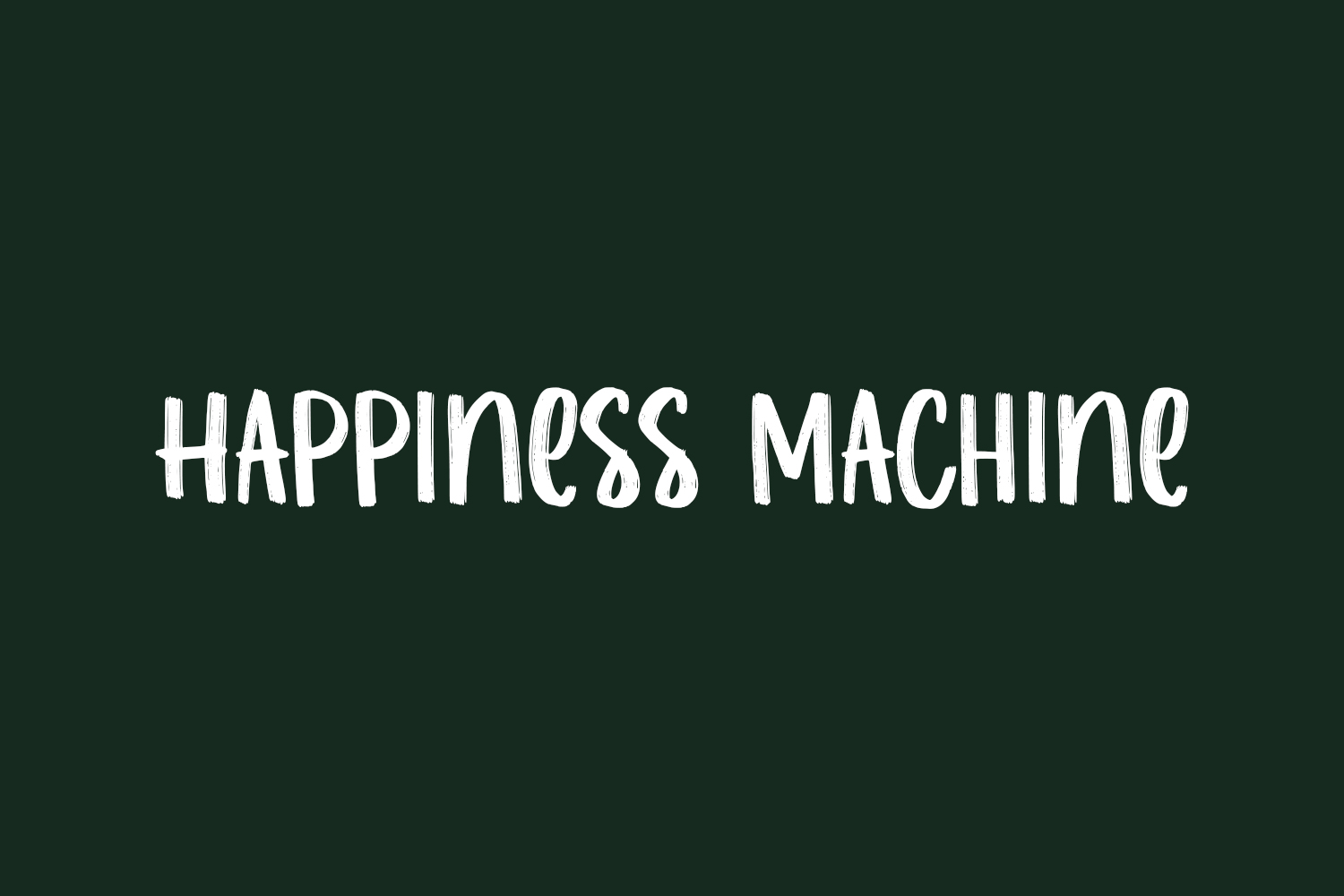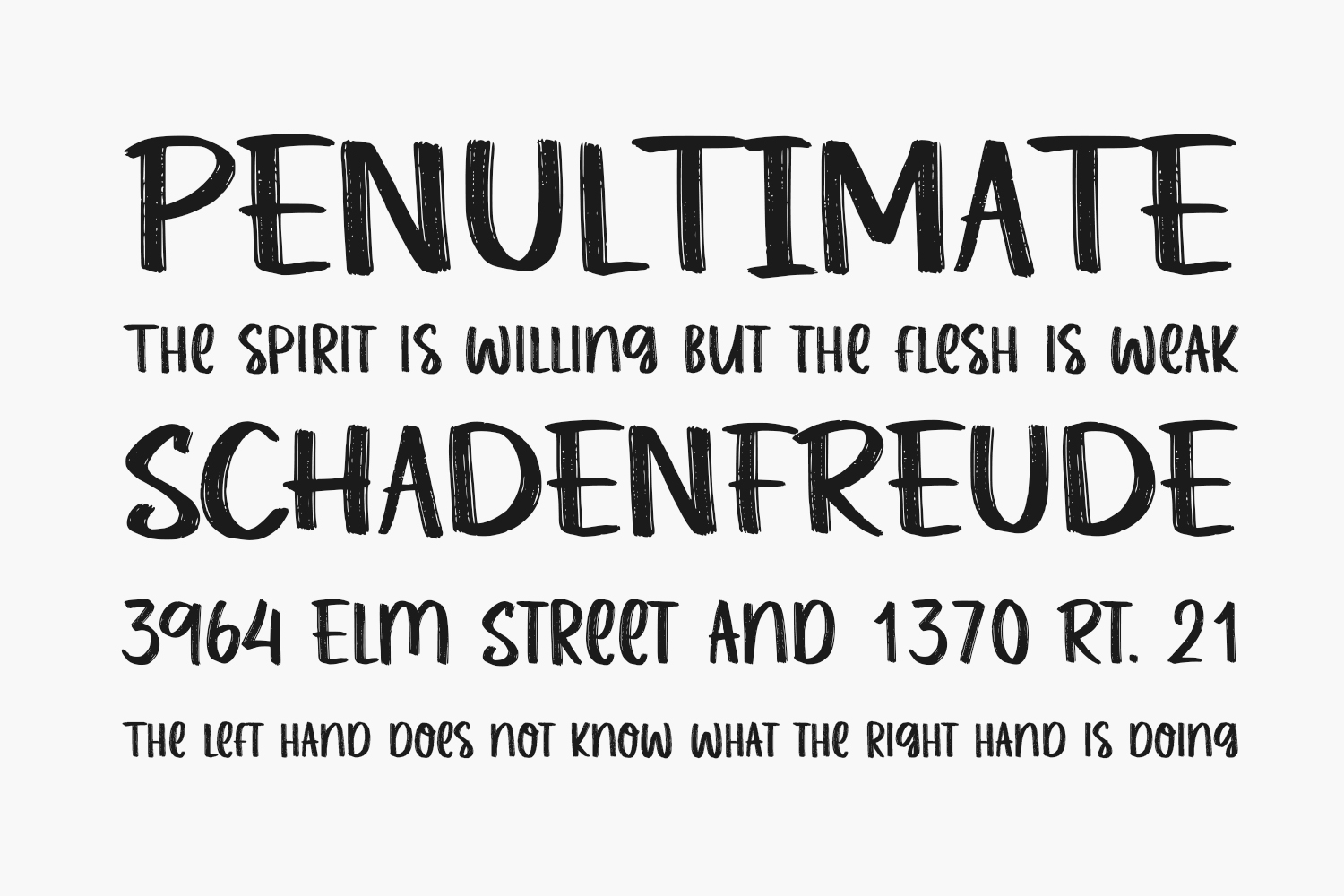
Happiness Machine Free Font Family is a lovely brushed duo font (display and script). Whatever the topic, this font will be a wonderful asset to your font library, as it has the potential to enhance any creation. Happiness Machine Free Font Family was designed by Allouse Studio and is free for personal use only. Please purchase the full version for commercial use.
Happiness Machine Regular The quick brown fox jumps over the lazy dog
Happiness Machine Script The quick brown fox jumps over the lazy dog